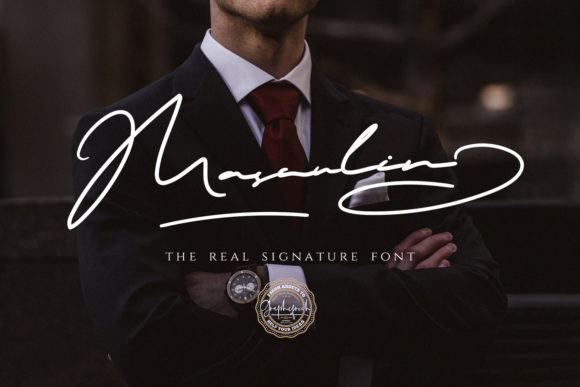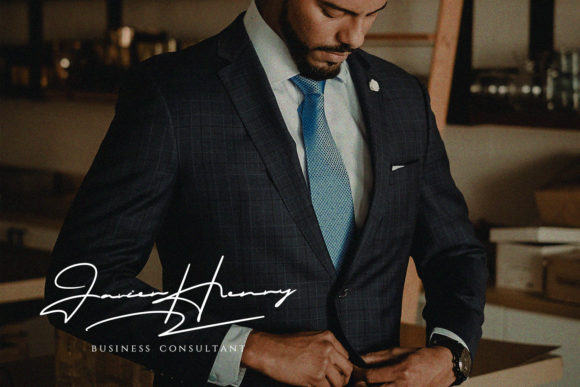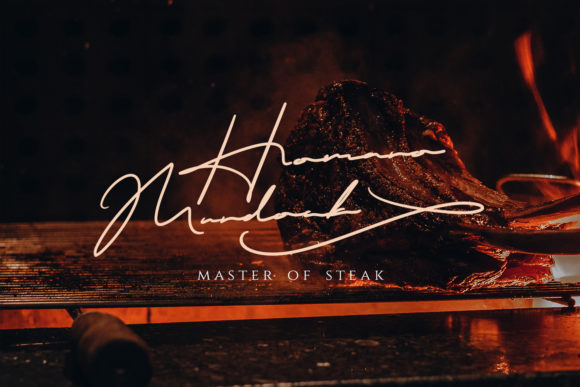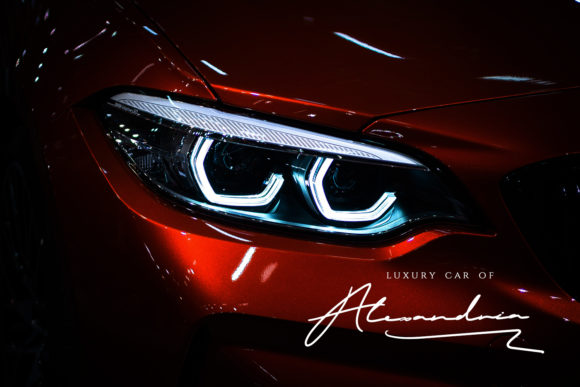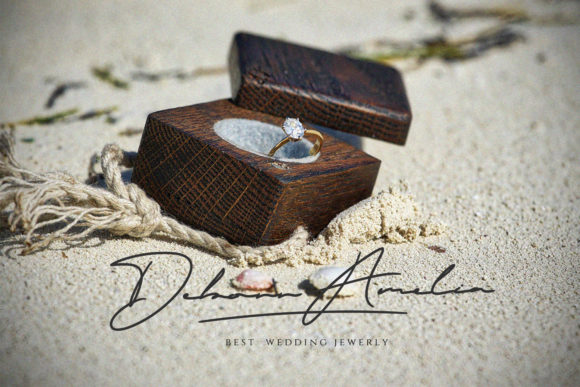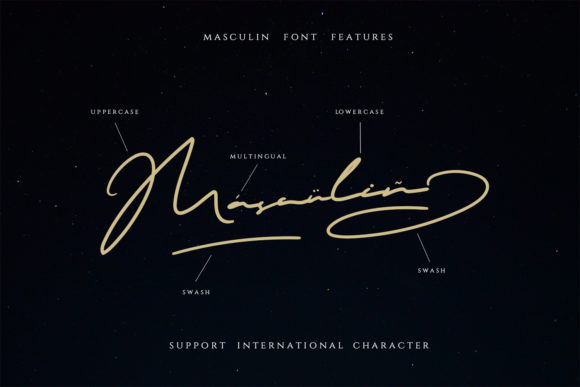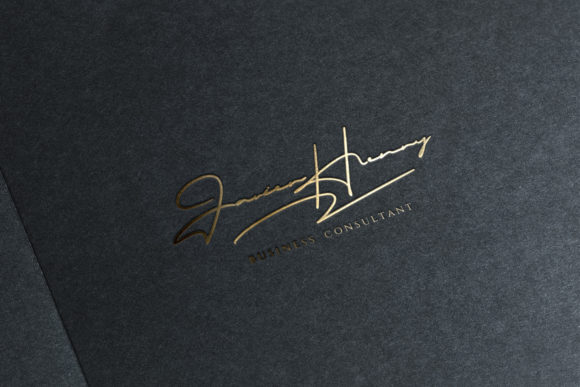
HomeScript FontsMasculin Font Script Fonts Masculin Font FacebookXPinterestWhatsApp Masculin Font Poster 2 Masculin Font Poster 3 Masculin Font Poster 4 Masculin Font Poster 5 Masculin Font Poster 6 Masculin Font Poster 7 About Masculin Font Masculin is a smart and light handwritten font with a unique feel. Get inspired by its modern elegance. DOWNLOAD ON CREATIVE FABRICAThis font is sold and delivered by Creative Fabrica. Font Canyon may earn a commission if you buy through this link. People also explored White Lily Monogram Font Takoyaki Font Beauty Unleash Font Albiona True Private Font Gray House Font Winter Glows Font Autumn Signature Font Rainbow Font 368 0 TagsMasculin Font Previous articleHelio FontNext articleWillford Font LEAVE A REPLY Cancel reply Comment: Please enter your comment! Name:* Please enter your name here Email:* You have entered an incorrect email address! Please enter your email address here Website: Save my name, email, and website in this browser for the next time I comment. Personal Use Free Miracles Personal Use Free Read more about this font Carved Wood Personal Use Free Read more about this font Propaniac Personal Use Free Read more about this font Romansya Personal Use Free Read more about this font BLOG Using Fonts in Digital Marketing: Tips to Strengthen Your Brand Identity In the realm of digital marketing, every visual element plays a crucial role in shaping a brand's identity, and fonts are no exception. The... How to Install and Use Fonts on Windows, macOS, and Web Projects Best Fonts for T-Shirt Design – Top 2025 Picks Modern Sans-Serif Fonts That Brands Love in 2025